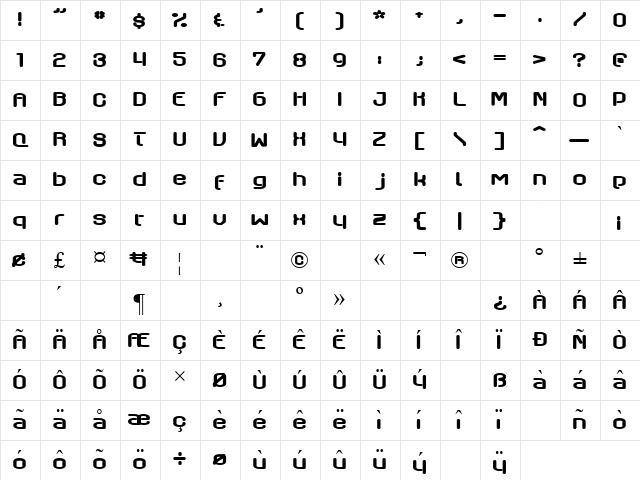
Axaxax regular
Style: regular
Foundry: larabie fonts
Designer: ray larabie
Axaxax Family
Axaxax regular
Design Context for Axaxax
Axaxax is a composed and adaptable typeface that performs quietly and consistently across a wide range of design contexts.
Who designed the Axaxax regular font?